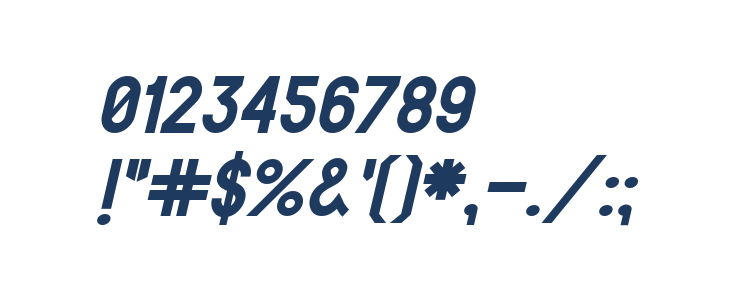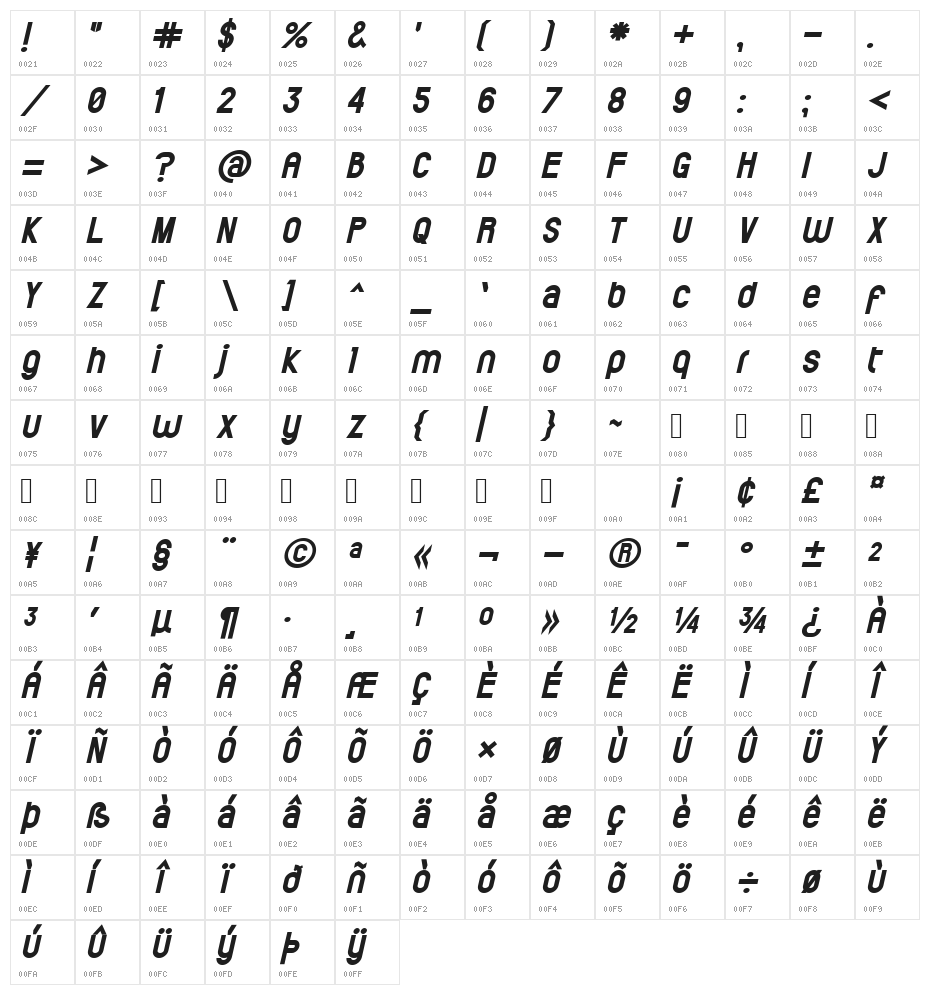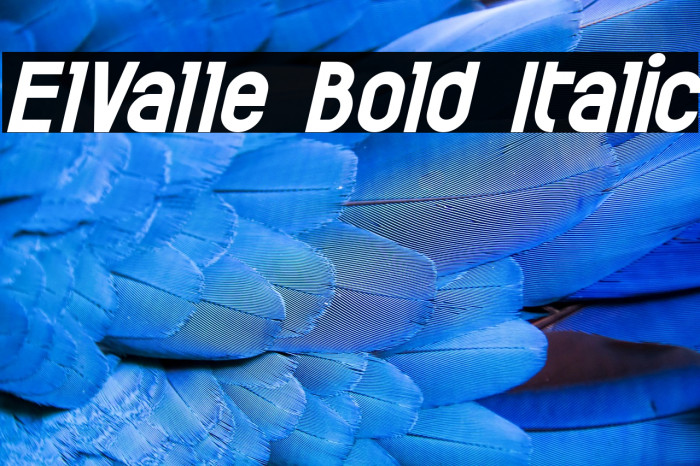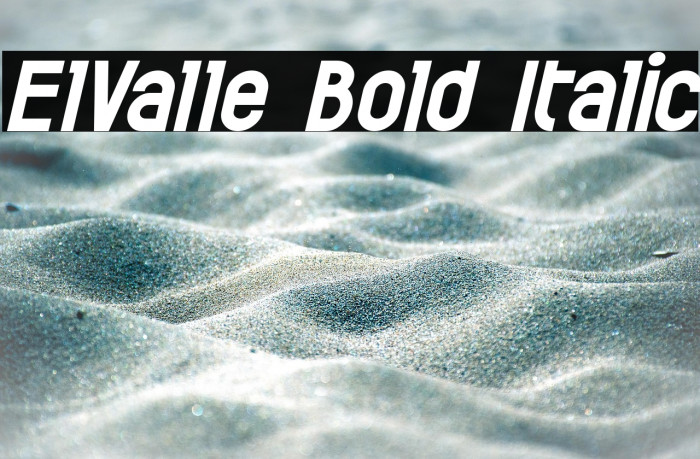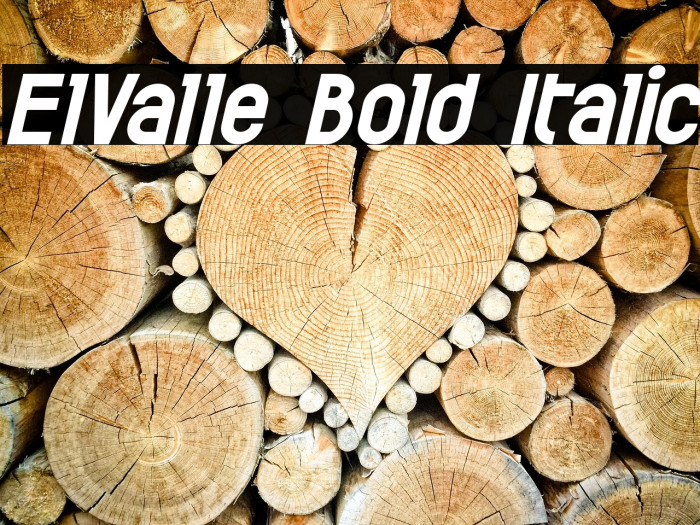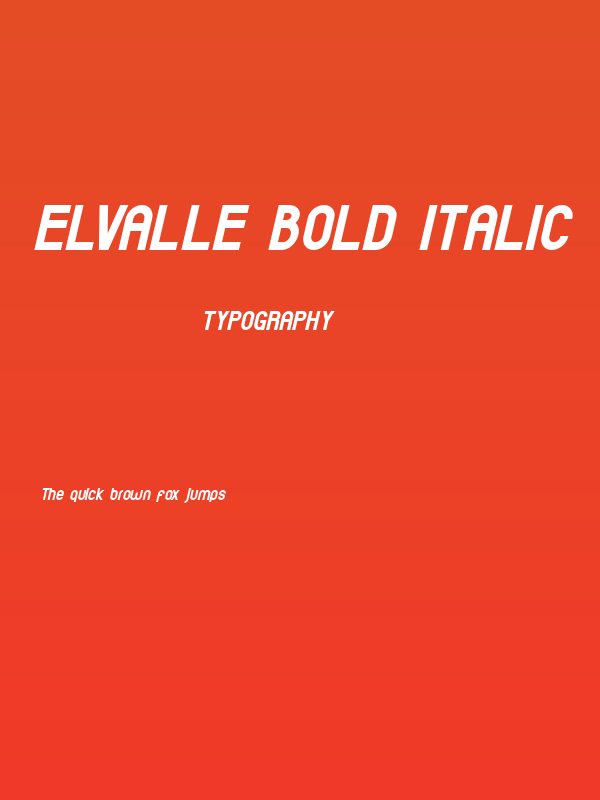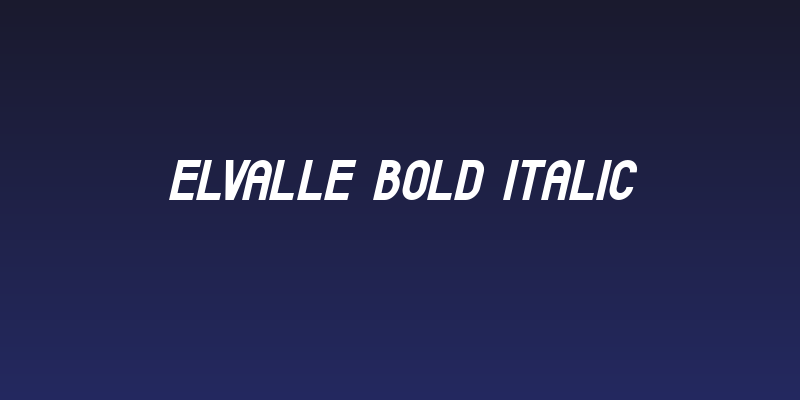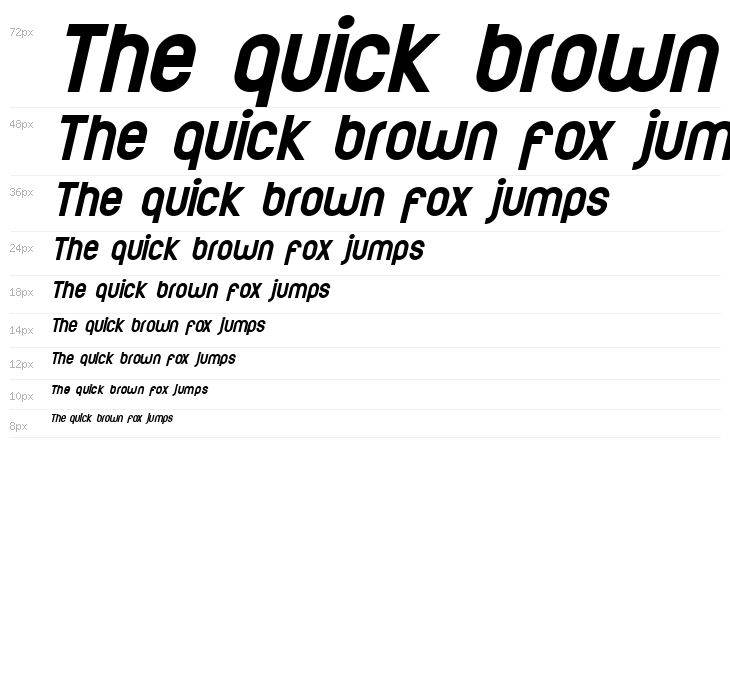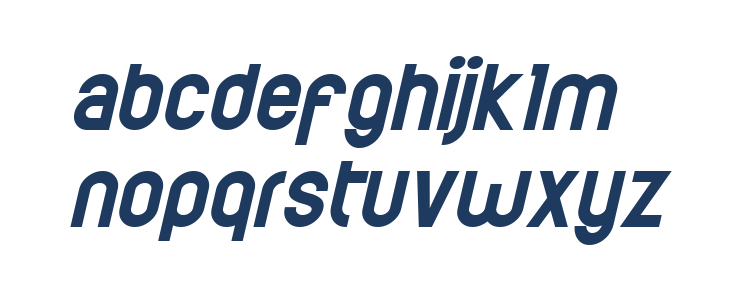
ElValle Bold Italic Font
ElValle Bold Italic Description
This font features a bold and italicized style, characterized by its strong and dynamic presence. The letters are slightly slanted, adding a sense of motion and energy. The strokes are thick and consistent, providing a robust appearance. The overall design is modern and sleek, making it suitable for attention-grabbing headlines or impactful logos. The numerals and special characters maintain the same boldness and slant, ensuring uniformity across all elements. The font's design is clean and uncluttered, with a focus on readability and style.
| Proposed Projects | Ideal for branding, advertising, posters, and any project requiring a strong visual impact. |